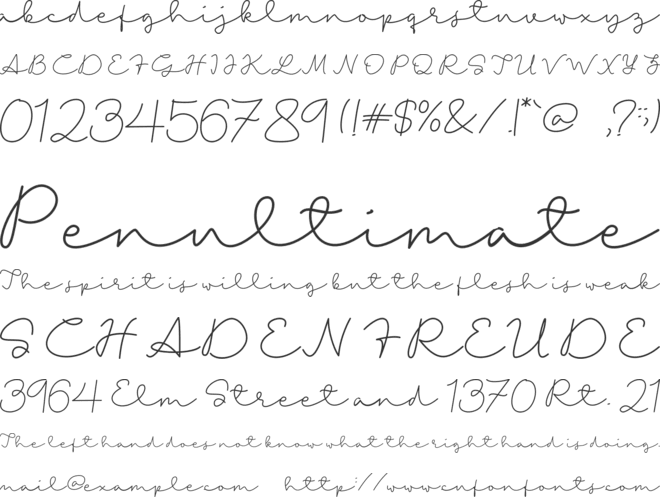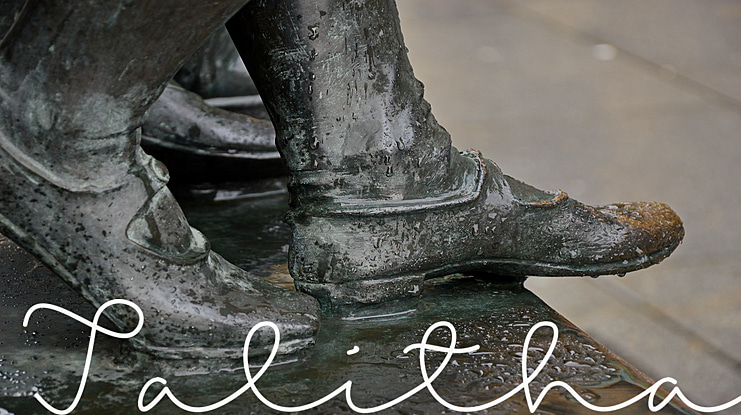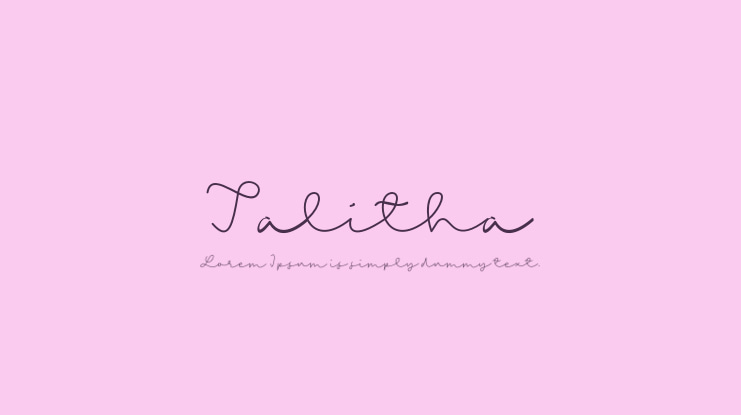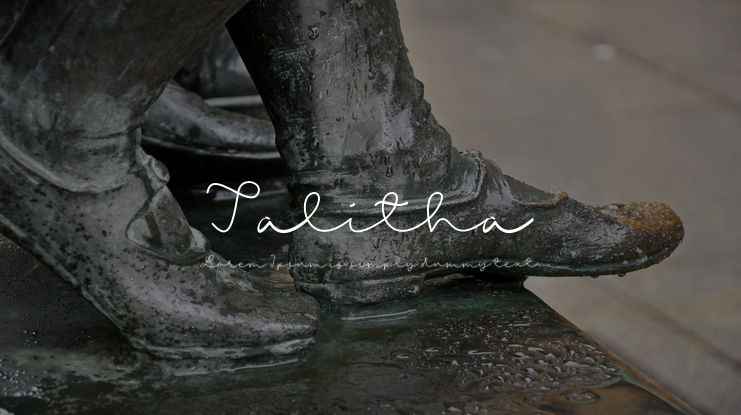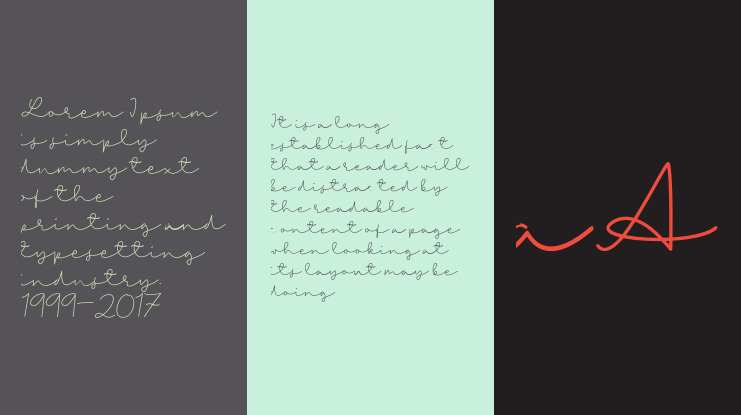
Talitha Font
Introducing
Talitha Signature Script Font by Sandylukee
It is great Font for any purpose of your design such as Logo, brand, quotes, wedding invitation etc.